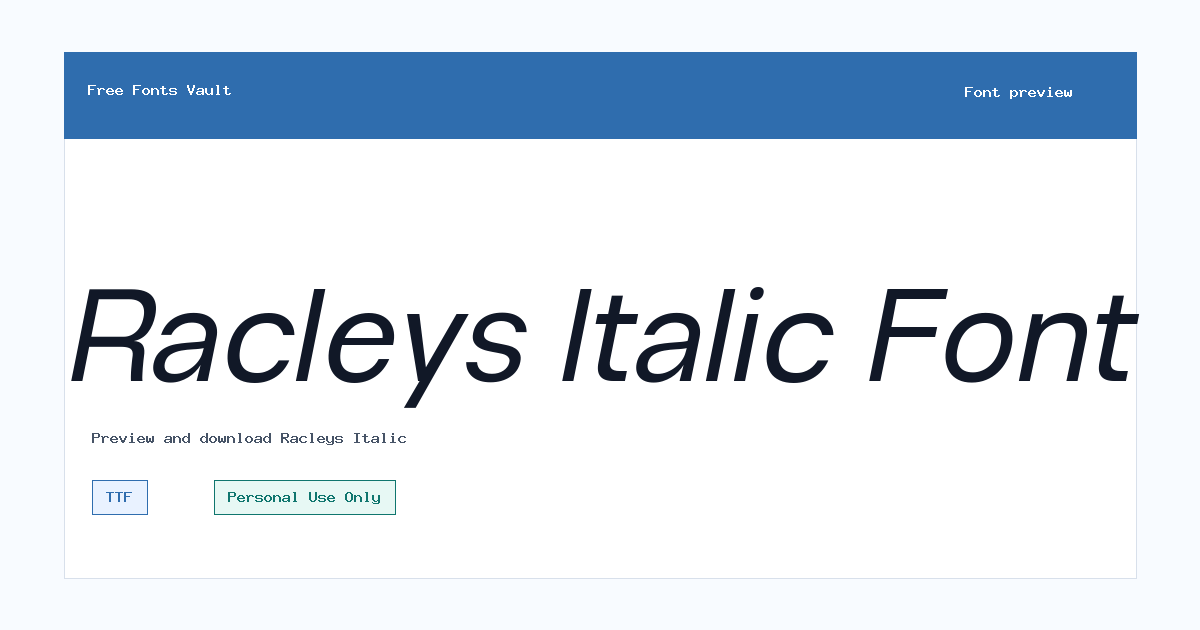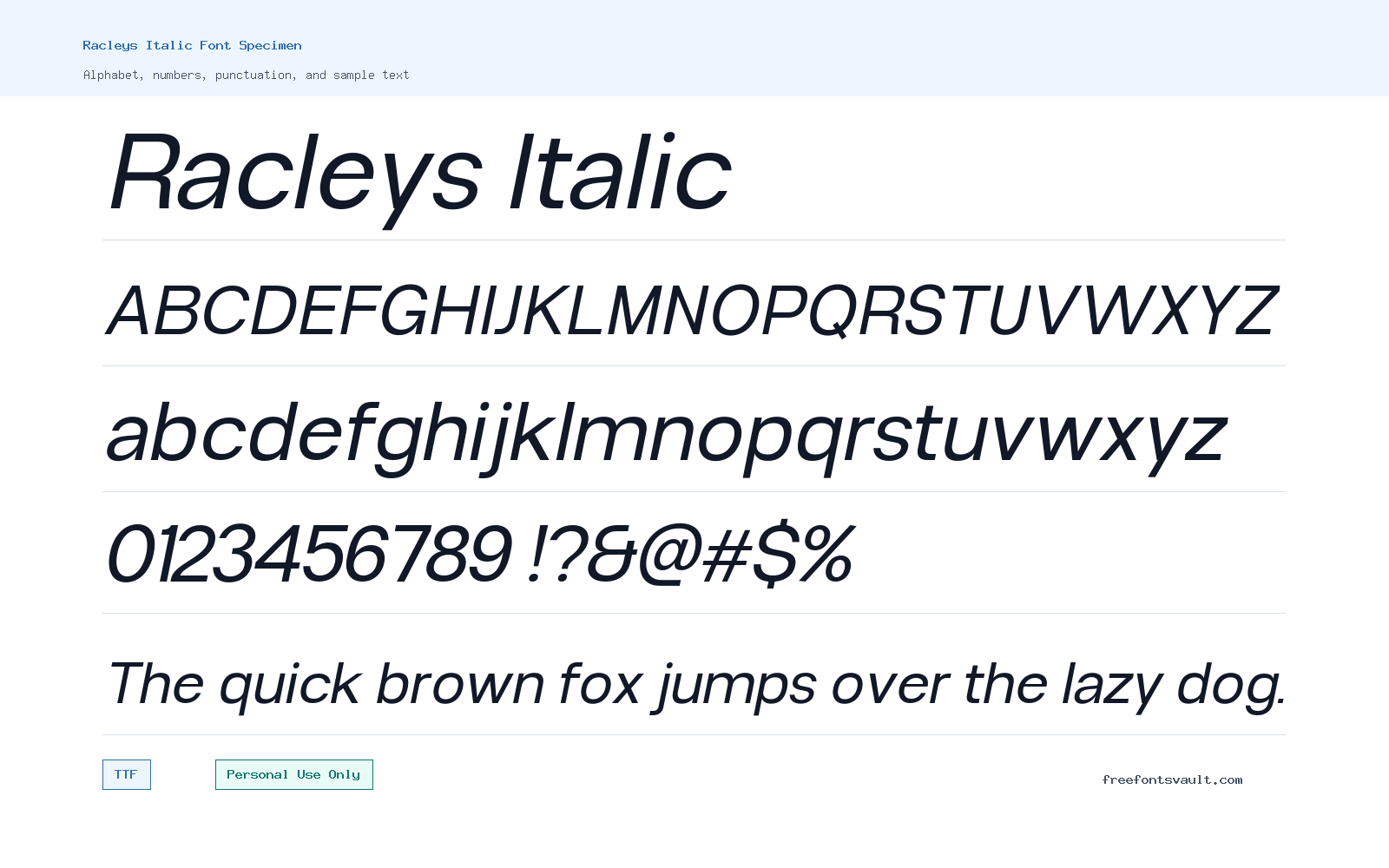
Racleys Italic
- Designer Glyphminds Studio (Graphicted.Co)
Racleys Italic font.
Racleys Italic is a slanted sans serif font style with a clean, modern feel. It is best suited for short display text where you want movement, emphasis, and a more polished look than a plain upright typeface.
About Racleys Italic
Racleys Italic works well when a design needs a light sense of motion without becoming decorative or hard to read. Its italic posture gives words a forward lean, which can make headings, name marks, social graphics, and poster text feel more active. Because the downloadable file is a regular-weight italic TTF, it is a practical choice for testing title treatments, branding concepts, quote graphics, packaging drafts, and web mockups. It is not a broad multi-weight family download, so the best results usually come from using it with care rather than relying on it for every layer of a layout.
Use Racleys Italic for words that need attention: a brand name, a short slogan, a section heading, a product label, or a strong callout. Italic styles can lose clarity when they are used for long paragraphs, small captions, or dense interface text, so preview it at the exact size you plan to use. If the letters feel too tight in a logo or poster headline, try adding a little tracking and give the text more breathing room. For web mockups, test it in large headings first, then pair it with a simple upright sans serif for body copy. That contrast keeps the design clean while allowing Racleys Italic to provide the accent.
- Clean slanted sans serif look that suits short display text, logo drafts, posters, and headline-focused layouts.
- Single listed variant with 400 weight and italic style, best used as a display accent rather than a full text system.
- Logo drafts and wordmark experiments where a slanted style can add motion or emphasis.
- Posters, flyers, thumbnails, and social media graphics with short headlines.
- Web and app mockups that need a stylish heading font paired with a simpler text face.
- Quote cards, product labels, packaging concepts, and presentation titles.
The designer is listed as Glyphminds Studio, with Graphicted.Co shown as the related designer website.
Start by previewing your own text in uppercase, lowercase, and mixed case. Italic fonts can change the rhythm of a word, especially in logos, so check spacing carefully. For posters and thumbnails, use Racleys Italic at larger sizes and avoid long blocks of copy. For pairing, try a neutral upright sans serif for body text and keep Racleys Italic for headings, names, or accent lines. If you are preparing a real brand identity or client design, resolve the commercial license first rather than treating the personal-use file as production-ready.
Who designed Racleys Italic?
The designer is listed as Glyphminds Studio, with Graphicted.Co connected as the designer website.
What is Racleys Italic best used for?
It is best for short display uses such as logo drafts, posters, headings, social graphics, packaging concepts, and web mockup titles.
Should I use Racleys Italic for paragraphs?
It is better for short text. For paragraphs, pair it with a clear upright font so the page stays easy to read.